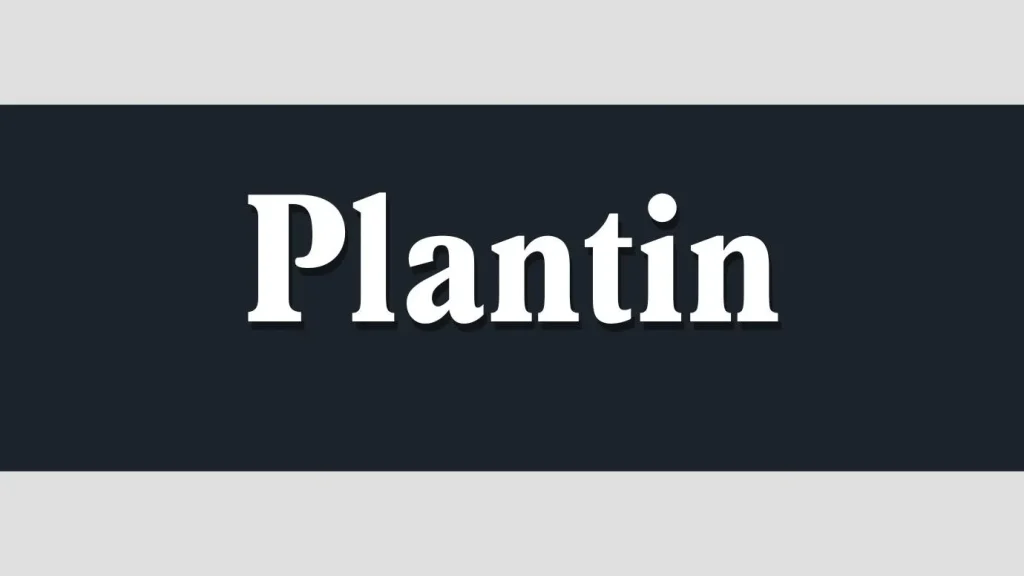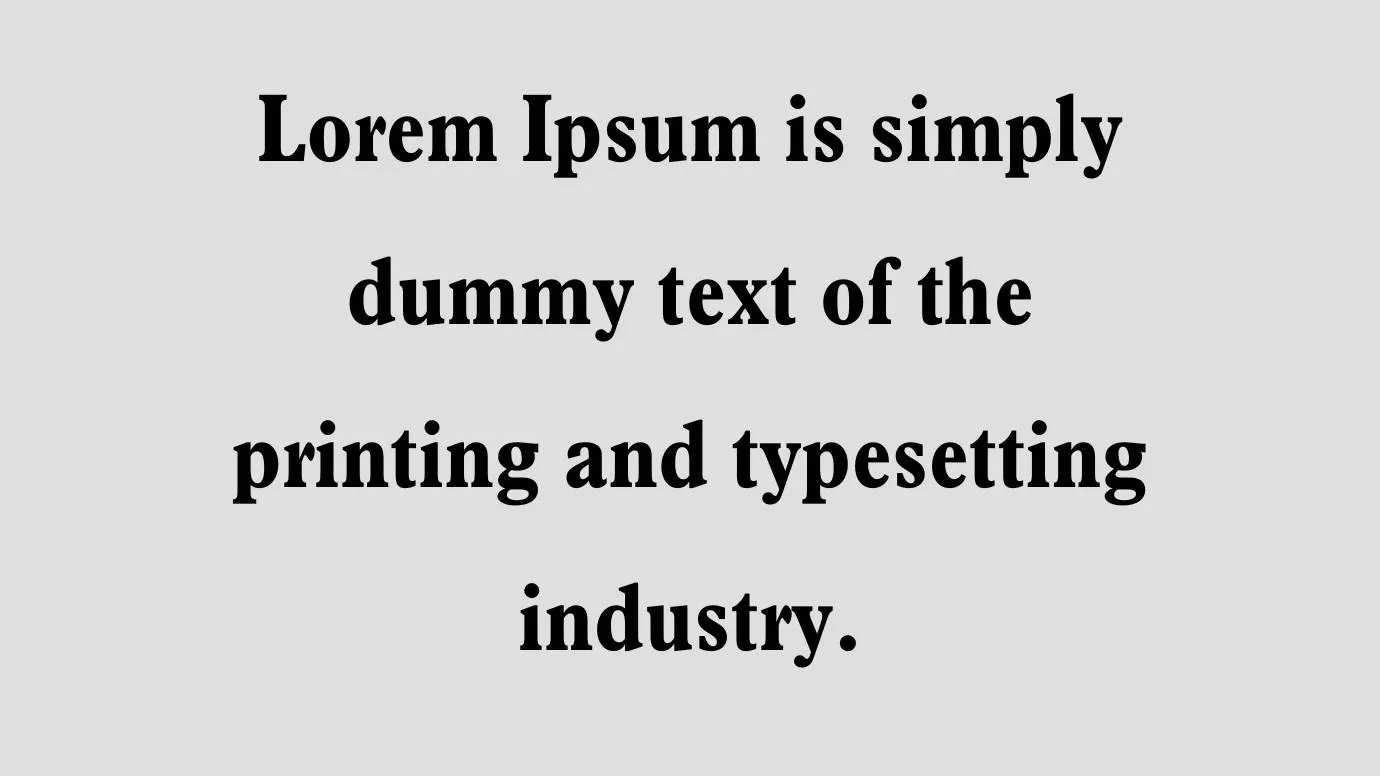
In 1913 this serif design was created text style could be an incredible choice to extend the noticeable quality of your task. Although the typography is conventional, the essential components are extraordinary. Plantin Font is a new and unique style with a carefully nice design.
The letters of this typeface, have a very sleek look there are few characters in every letter of this typeface that have the right height, and width, and idealized space between the letters.
The typeface is ideal for branding projects, houseware designs, and product packaging. In addition to making better designs, this fine lettering style will also make better designs with other typefaces.
The Artful Development and Design of Plantin Font
With this style you can make beautiful tattoo designs. As well as printing t-shirts and banners, it can also be used for designing logos and creating banners. Create unique designs by pairing them with other fonts.
There are many uses for this stunning font family, including titles, captions, and headings. You'll get a rustic look with its unique characters.
You will get a pleasing feel with this font. Many things can be done with it, including invitation cards, video game graphics, and web designs. It would work well for a nature-themed project as well as something historical.
The use of this typeface gives almost every design a heavy look, so it would be an ideal choice for big-text projects. There are a lot of uses for this typeface, such as creating invitation cards, stylish posters, unique book covers, game designs, and more designs.
Presentations and notes can be made with this typeface. You can use this style according to the need of your project. The design of this typeface makes this typeface an incredible choice for dynamic designs. By using the sonic font in conjunction with this typeface, you can achieve remarkable displays.
You can use this lettering style to create commercials, placards, website patterns, artwork, business cards, pamphlet layouts, T-shirt designs, and social media posts.
Plantin Font Preview
This high-quality typeface is full of textured elements and perfect for use in signage, editorial design, and printing. This typeface can be used to create interesting designs, and logos for stores you can easily create with this style.